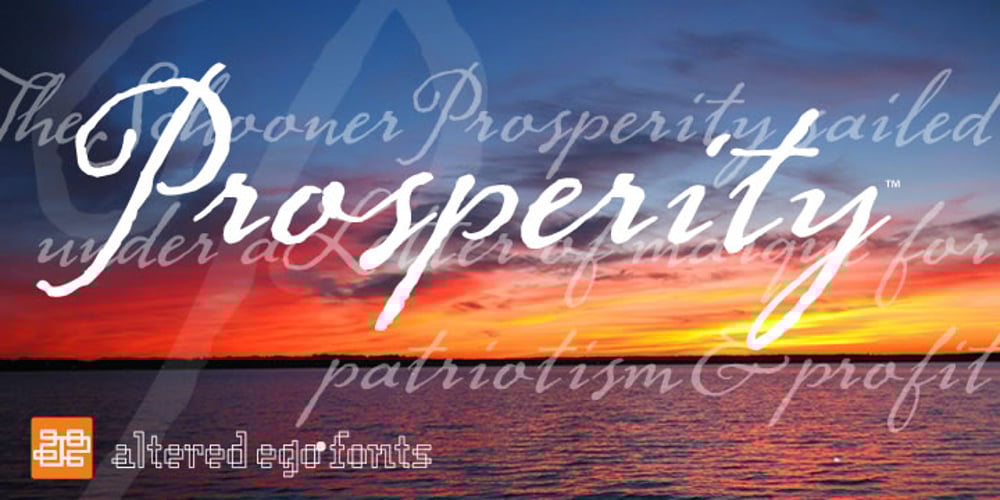
AE Prosperity Font Family was designed by Brian Sooy and published by Altered Ego. AE Prosperity contains 1 styles and family package options. Well suited for headlines, packaging and display applications, AE Prosperity will be a robust and versatile addition to your script library. It’s purposefully designed to infer the visual connections of letters for a hand-lettered feel. Some characters will connect, and others will guide your eye to the next letter from, making it highly legible. In 1779, the schooner Prosperity sailed the high seas. Commissioned by a young continental congress, with 6 guns & at twenty tons, she sailed under a Letter of Marque for patriotism and profit. Look lively, because with contextual and alternate glyph sets (contextual glyphs, alternate lower case glyphs and an extended set of alternate capitals), this robust typeface is as inspiring as her namesake and adapts to whatever winds may blow. Prosperity is designed as a free-flowing script, for a spontaneous and historic aesthetic. Contextual glyphs include variations on tt (short and longbar), t longbar, ll, cc and other characters. Contextual features change ascender heights and descender styles. Alternate glyphs (set 1) include variations on b,d,f,g,h,l,o,p,r,s,t,y. Alternate capitals (set 2) include a complete set of alternate upper case letters. Most useful with Adobe® InDesign®, multiple variations of letter combinations can be achieved by selecting Contextual glyphs, and/or set 1 and set 2 from the Character Palette: OpenType: Stylistic Sets menu. Alternate glyphs and contextual characters will be available based on the OpenType support of your application. AE Prosperity™ is available exclusively in OpenType format.